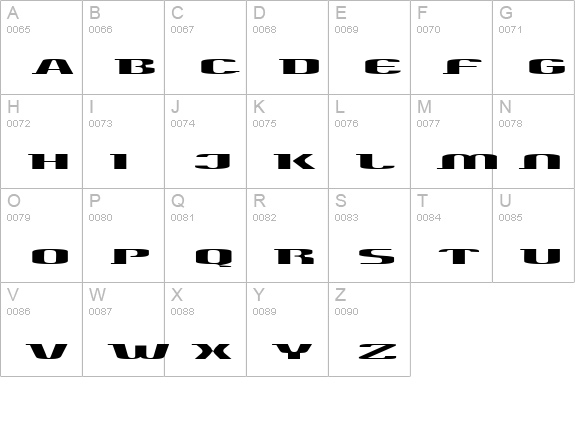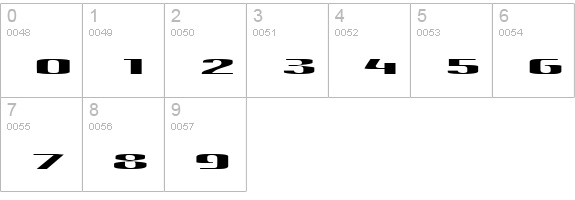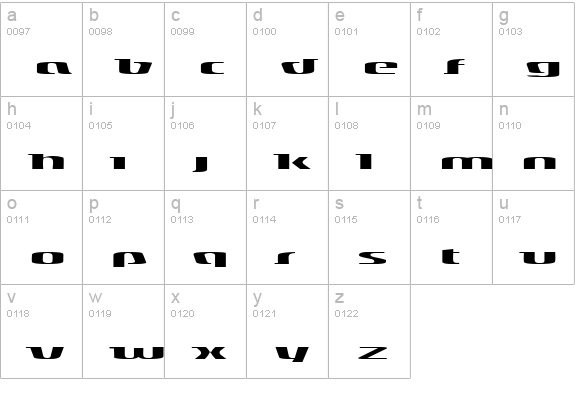
slick Font Details
Introducing the mesmerizing Slick Font, a delightful typeface that seamlessly blends elegance with modernity. With its sleek and refined design, Slick Font is the epitome of sophistication, making it the perfect choice for any project that requires a touch of class. This stunning font boasts a unique combination of sharp edges and smooth curves, creating a visually striking display that effortlessly captures attention. Its clean and minimalist aesthetic adds a contemporary flair to any design, making it versatile for a wide range of applications, such as logos, branding, headlines, posters, and more. But what truly sets Slick Font apart is its accessibility. We believe that creativity should be limitless and freely accessible to all, which is why we are thrilled to offer this extraordinary font for free download at FontsMarket.com. Now, you can effortlessly elevate your designs without breaking the bank or compromising on quality. Whether you are a professional designer, a creative enthusiast, or simply someone who appreciates the beauty of typography, Slick Font is here to enhance your artistic endeavors. So don't miss out on this opportunity to add a touch of sophistication to your design arsenal. Download Slick Font for free at FontsMarket.com and let your creativity shine.